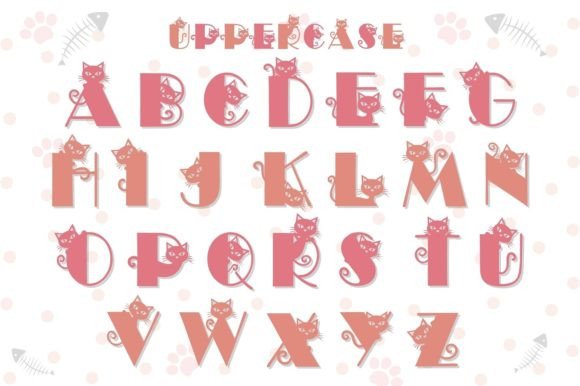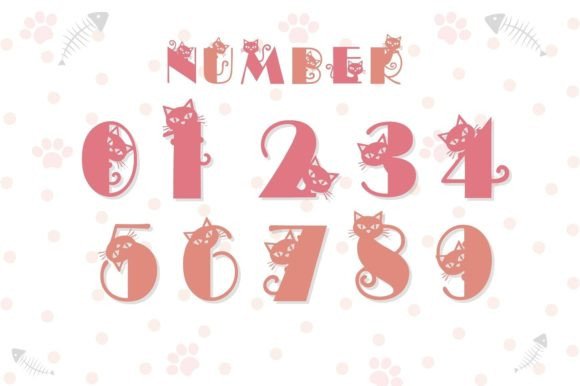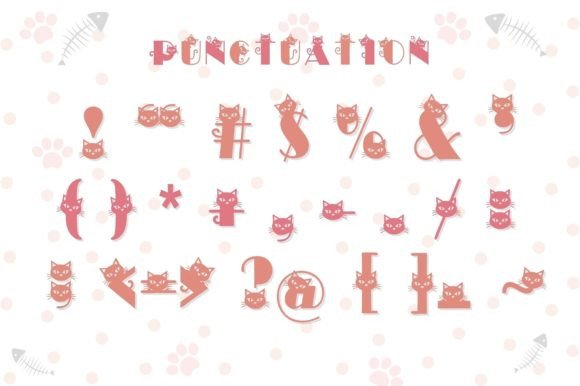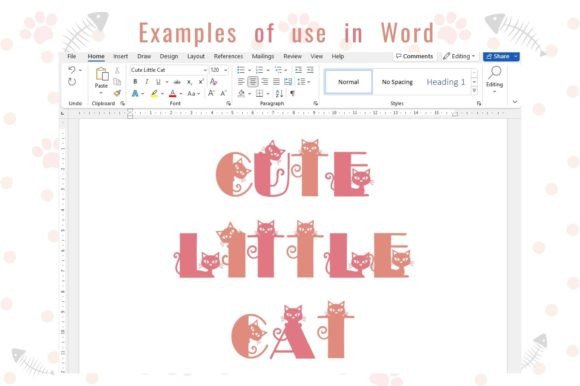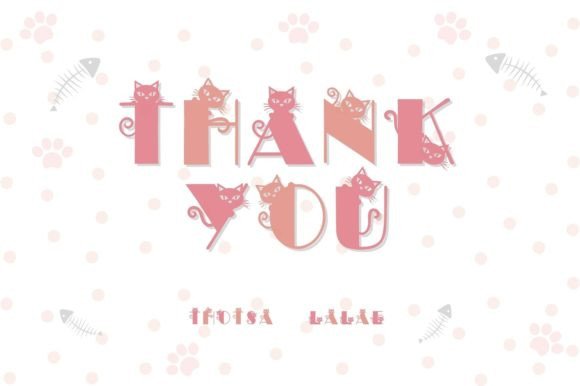
Cute Little Cat Font: A Purrfect Addition to Your Design
Who hasn’t had one of those moments where they’re brainstorming a project and suddenly, a character or a design element pops into their head? For some of us, it might be a quirky illustration or a catchy phrase, but for designers who love cats, it’s probably a font that’s just too cute to ignore.
Meet the Cute Little Cat Font, a delightful decorative font that brings a smile to every cat lover’s face. With a little cat on each letter, this font is purrfect for designers who want to add a playful touch to their projects. Whether you’re designing a cat-themed blog, creating a children’s book, or simply want to give your social media posts a fun twist, this font is a valuable addition to your design toolkit.
As a designer, you know how much a well-chosen font can elevate your work. The Cute Little Cat Font is no exception, offering a unique and charming way to express your creativity and connect with your audience.
Cute Little Cat Font Key Features
- Font Family: Cute Little Cat Font is a unique, hand-drawn font designed to resemble a cute cat’s face. It’s perfect for adding a playful touch to your designs.
- Character Count: The font includes 100 characters, including uppercase and lowercase letters, numbers, and special characters, making it suitable for short to medium-length text.
- Unique Characteristics: The font features a whimsical, hand-drawn design with intricate details, including whiskers, eyebrows, and a cute nose, making it stand out from other fonts.
Cute Little Cat Font Review
Cute Little Cat Font is a playful and whimsical font that’s sure to bring a smile to your face. ✨ I love the rounded edges and adorable cat silhouettes scattered throughout the font. It’s perfect for designs that need a touch of cuteness and whimsy. ✨
One of the things that really stands out about this font is its versatility. It can be used for a wide range of projects, from children’s books and nursery decor to cat-themed merchandise and social media graphics. ✨
- Rounded edges and playful cat silhouettes
- Versatility in design applications
- Perfect for designs that need a touch of cuteness and whimsy
- May not be suitable for formal or professional designs
- Some characters may not be as legible at smaller font sizes
- Not as extensive a character set as some other fonts
Overall, I think Cute Little Cat Font is a great choice for designers who want to add a playful touch to their projects. While it may not be suitable for every design, it’s a fun and versatile font that’s sure to bring a smile to your face.
For the best results, use the Cute Little Cat Font in combination with playful graphics and bright colors. Experiment with different font sizes and styles to create a visually appealing design.
The Cute Little Cat Font is perfect for:
– Pet-related designs (e.g., cat owners, pet stores)
– Children’s products (e.g., toys, clothing)
– Whimsical marketing campaigns